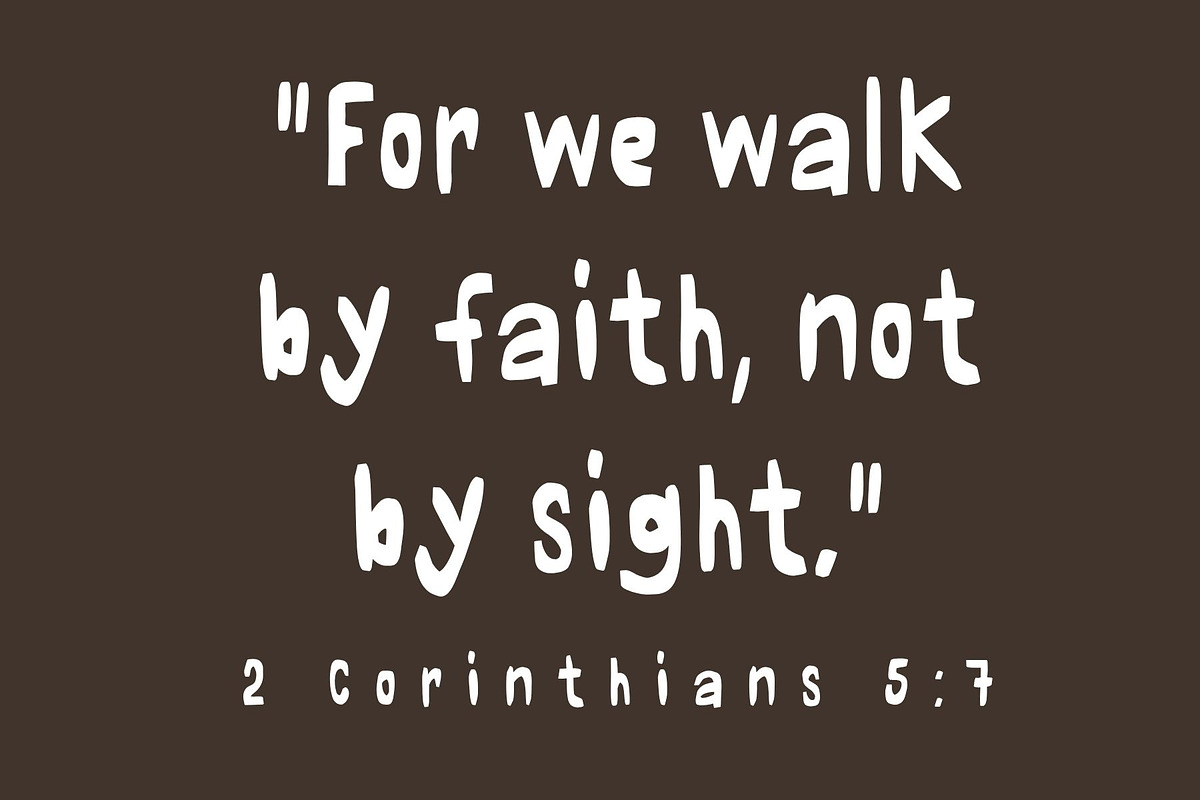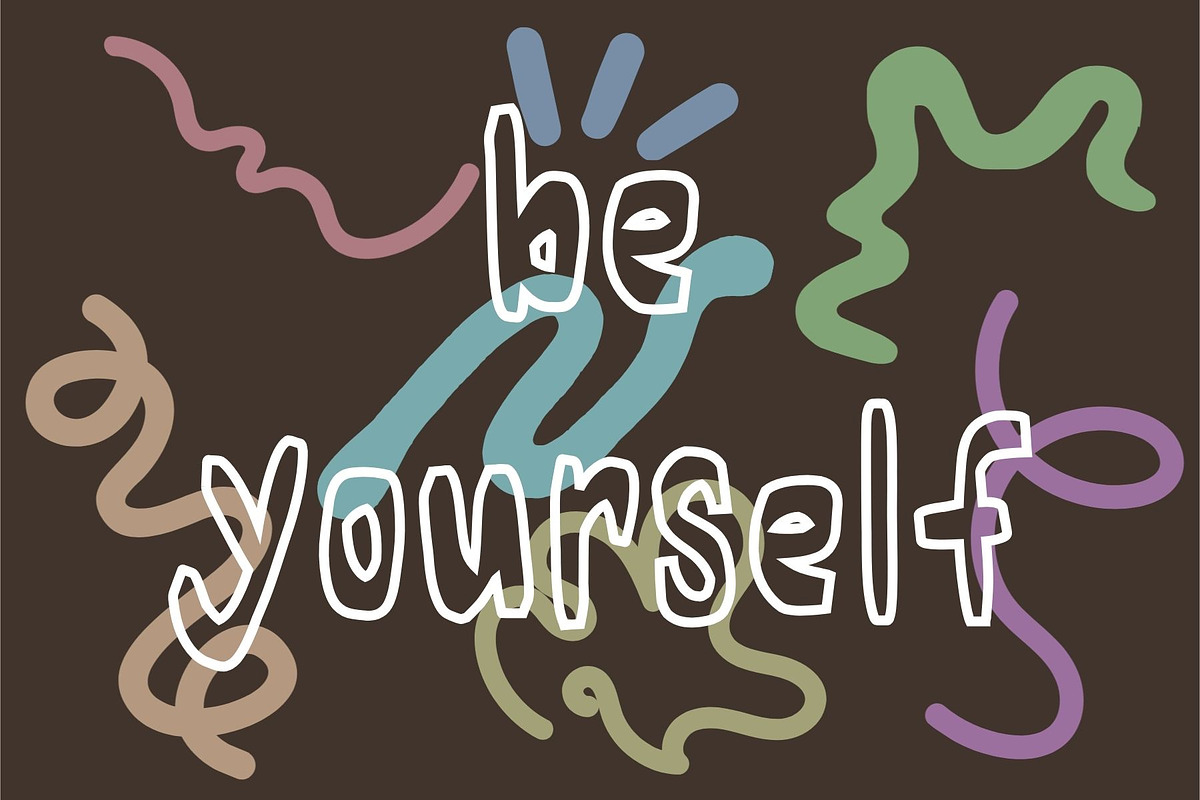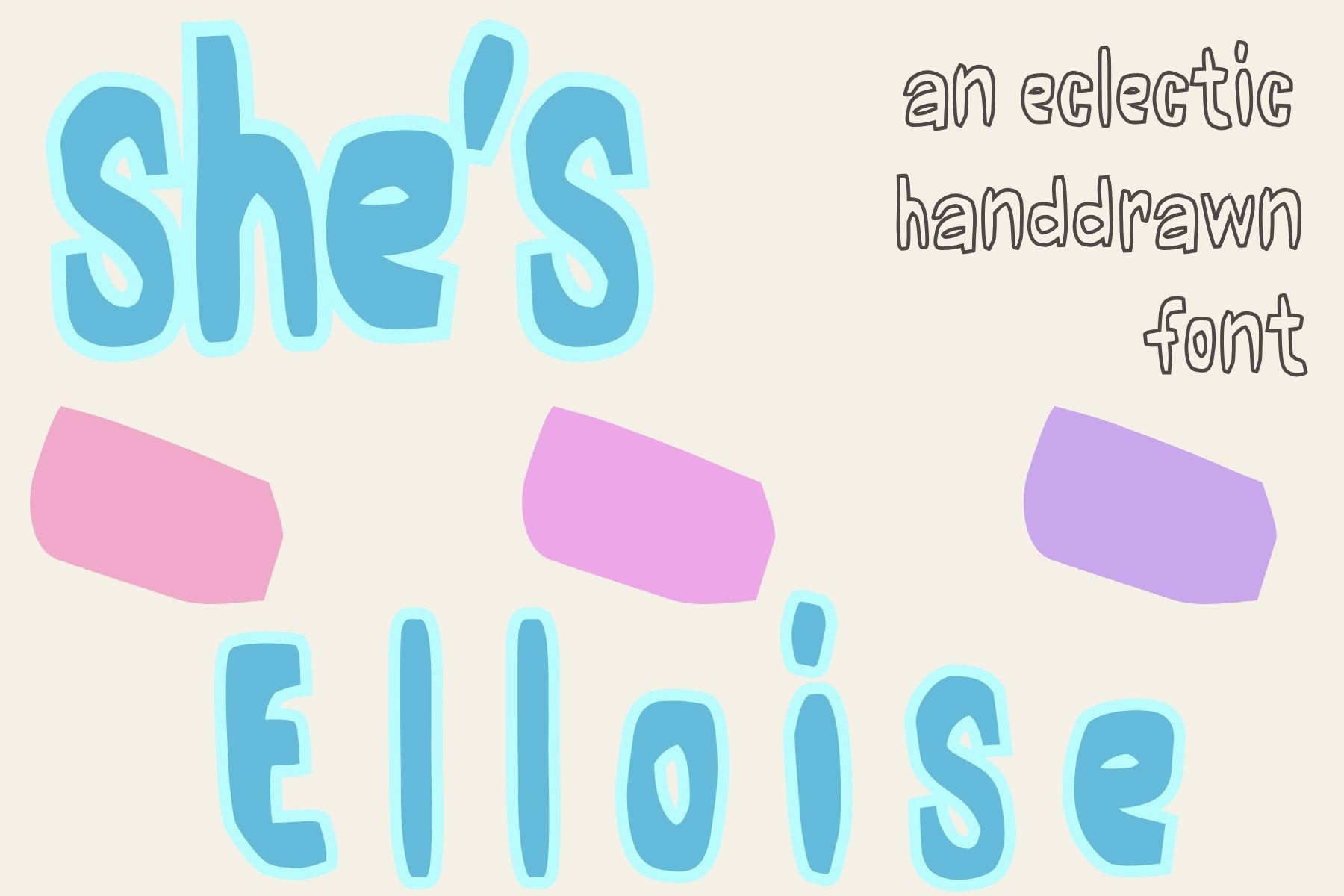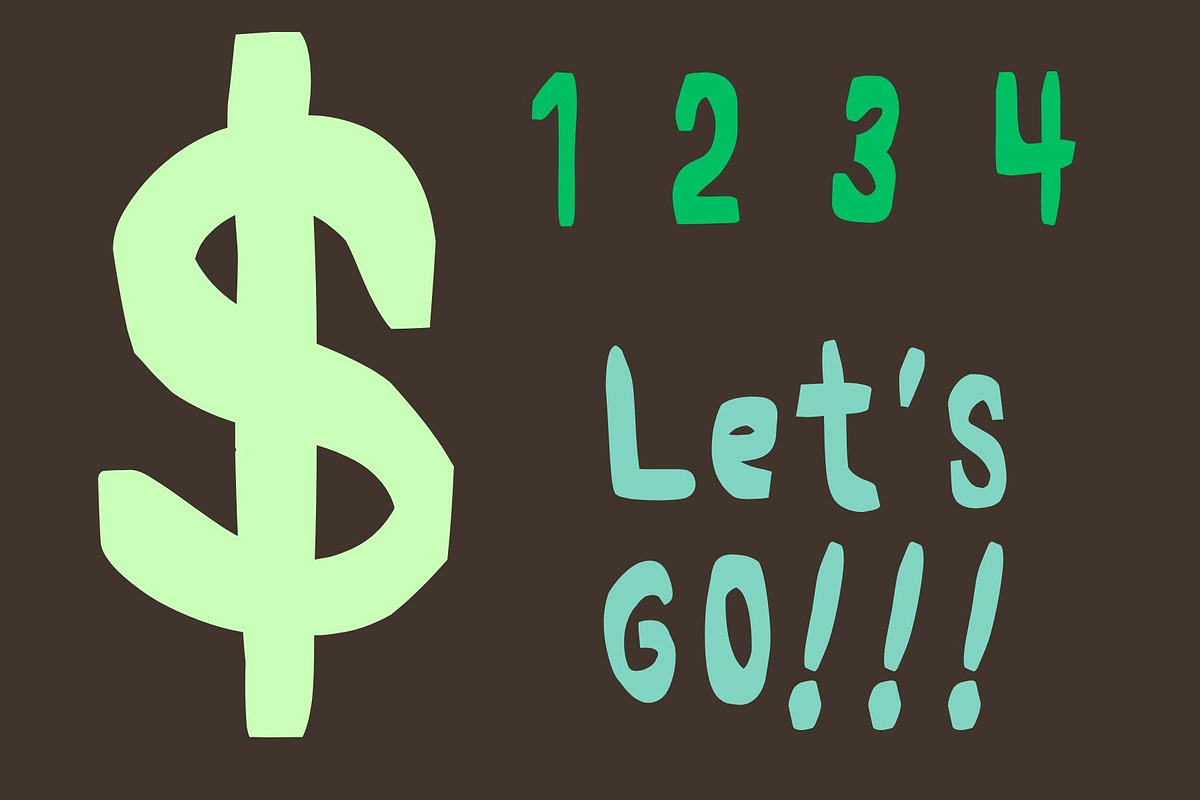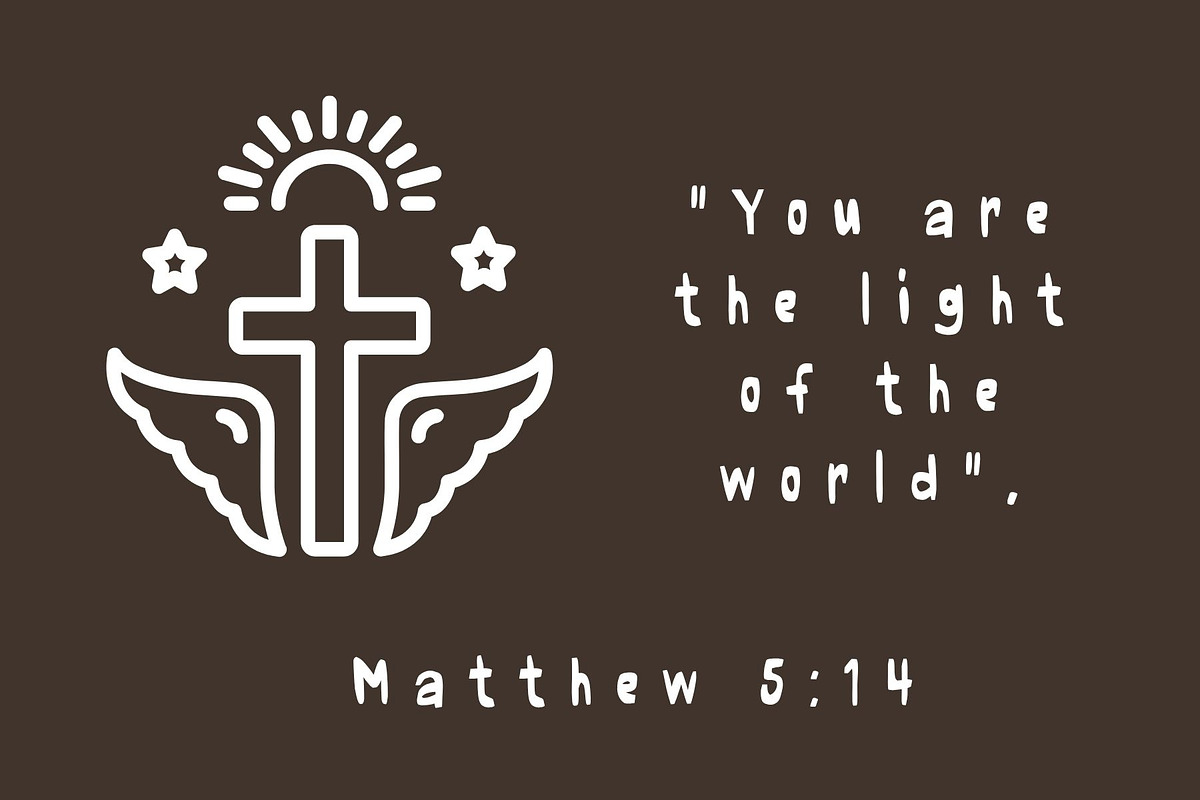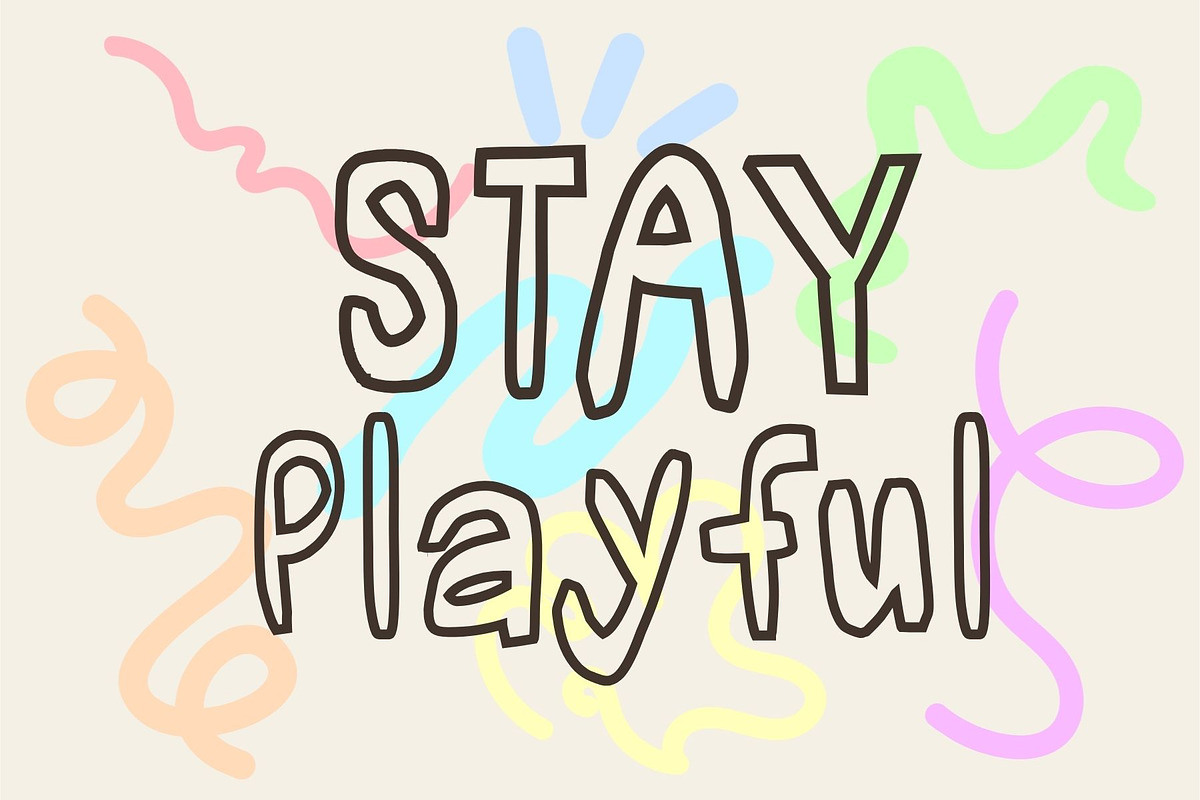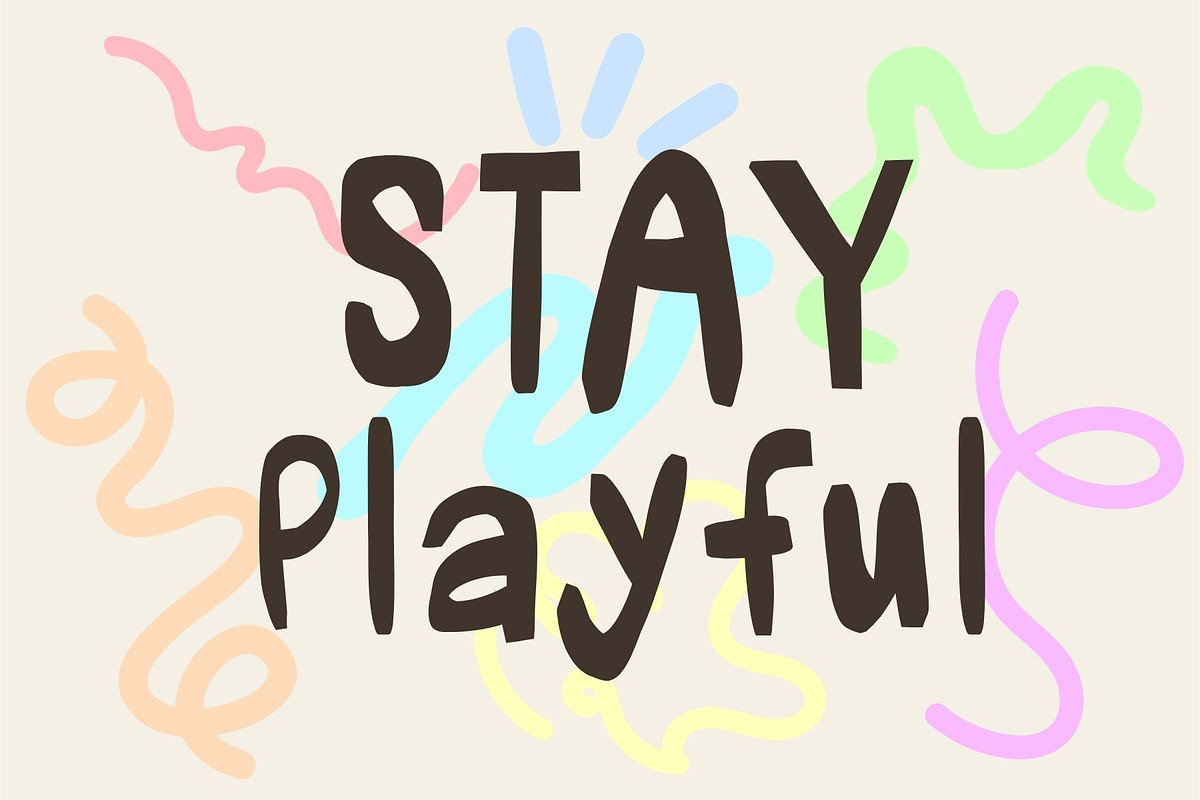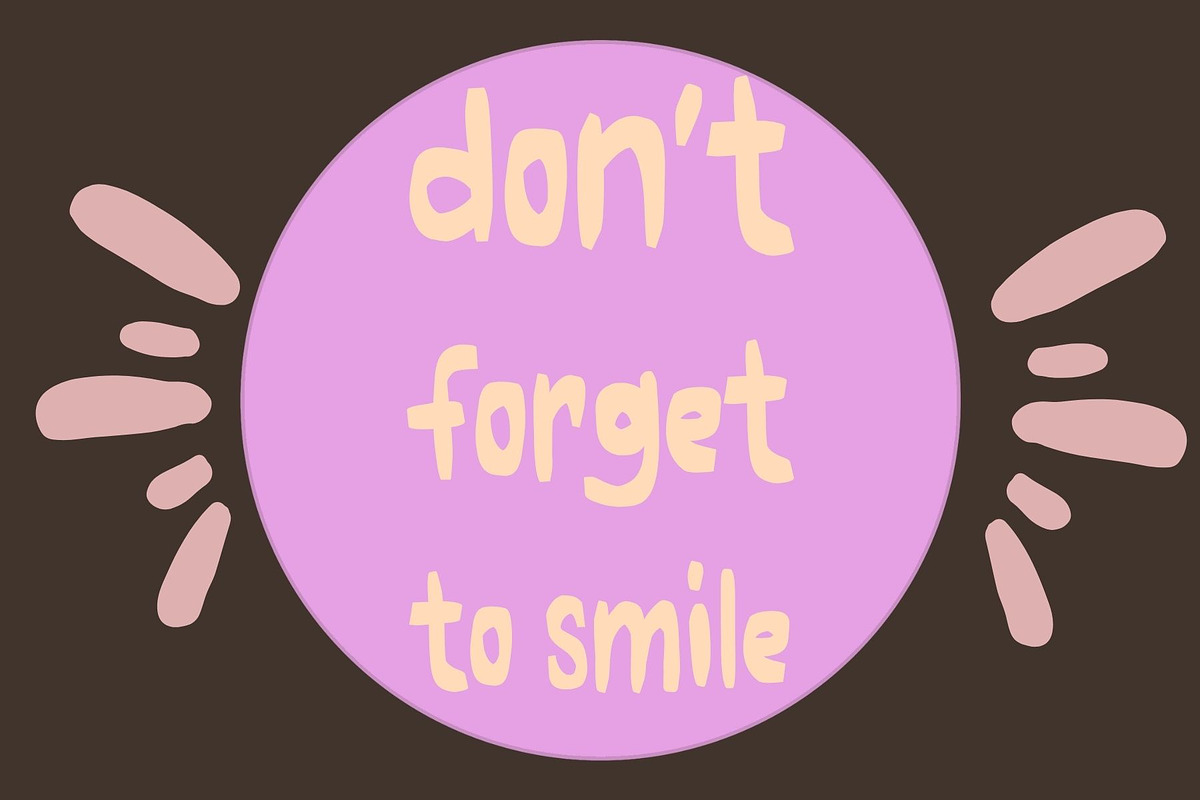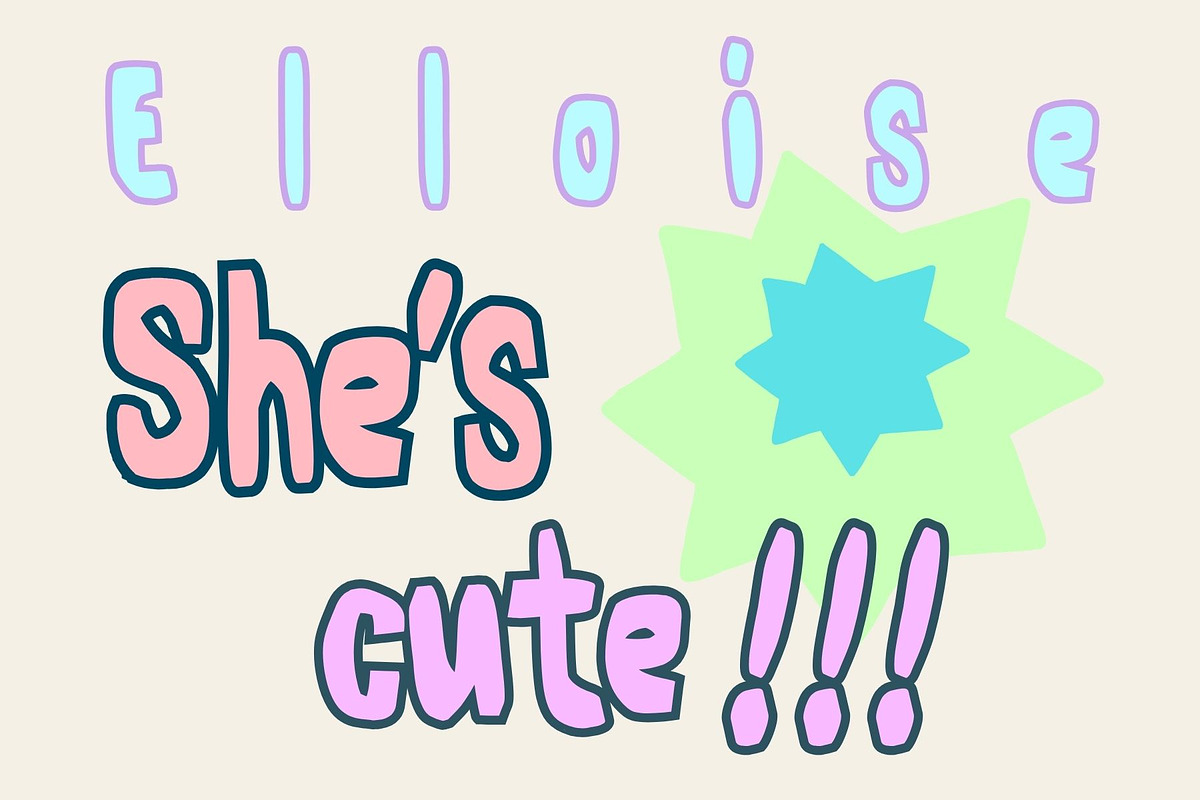
She's Elloise quirky hand drawn font
She's Elloise, a quirky hand drawn font.
numbers, full alphabet, symbols
"She's Elloise" is a font sure to entice viewers from the playful and magnetic energy she exudes. This font is full of imperfect, uneven letters, numbers, and symbols that share the characteristic warmth that makes hand-drawn fonts so sought after. Wonderful for use in your magazine layouts, book covers, flyers for kids, kids clothing labels, product labels, or stationary designs... However you chose to use this font, its sure to have people gravitating towards what you have to offer.